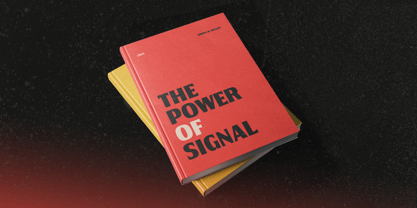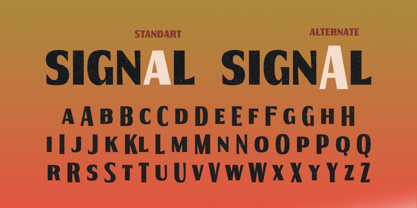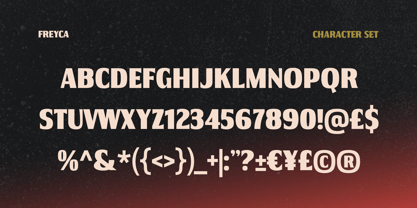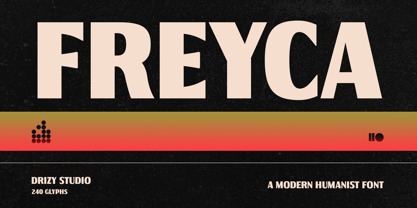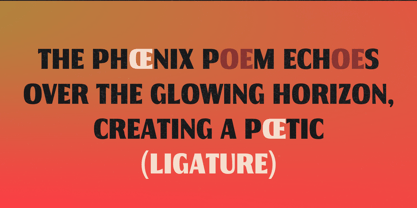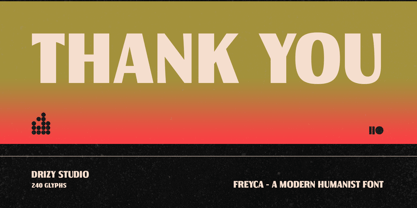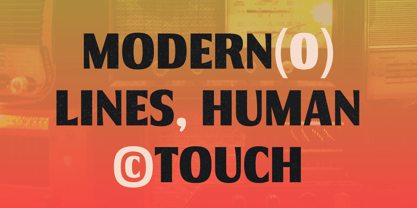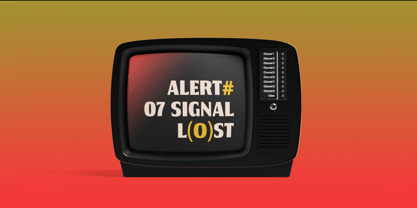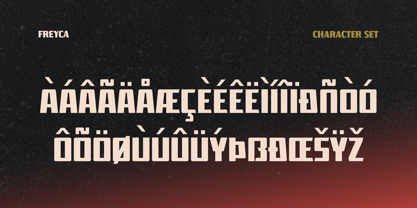
Freyca
The Freyca Font Family was designed by Panca Ahmadi Hasan and published by Drizy Font. Freyca contains 1 styles. More about this family
Freyca – Modern Humanist Font Freyca is a modern humanist typeface that blends clean geometry with the warmth of natural handwriting. Designed with balanced proportions and subtle curves, it delivers a friendly yet professional tone—perfect for branding, editorial design, and digital content. Its humanist roots bring a sense of approachability, while the refined structure keeps everything looking polished and contemporary. With excellent readability across both print and screen, Freyca adapts effortlessly from headlines to body text. Whether you’re building a modern brand identity or crafting elegant layouts, Freyca offers a versatile and timeless typographic voice. Freyca – Modern Humanist Font features: Character Set Punctuation & Numbers Multilingual Ligatures Alternates Elevate and explore the design possibilities with this Casual Broadcast Font!